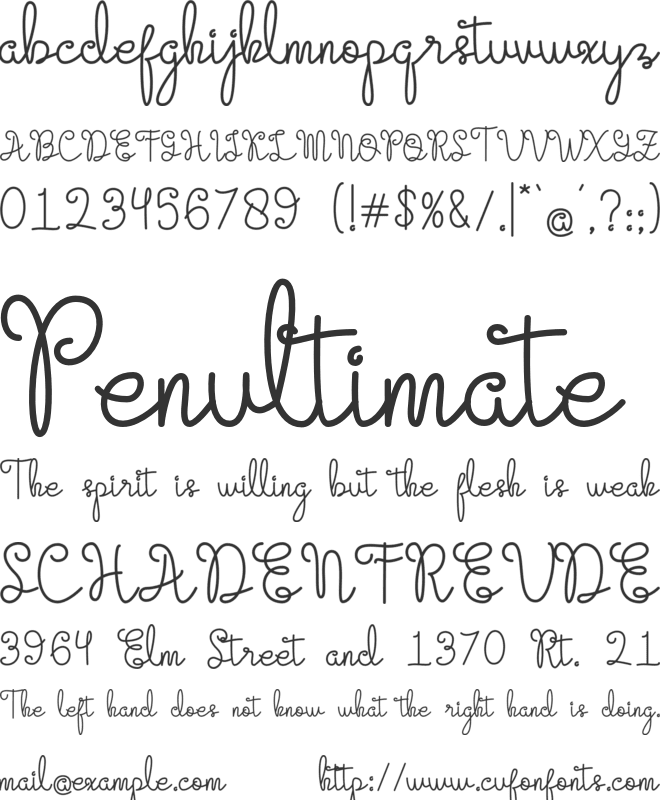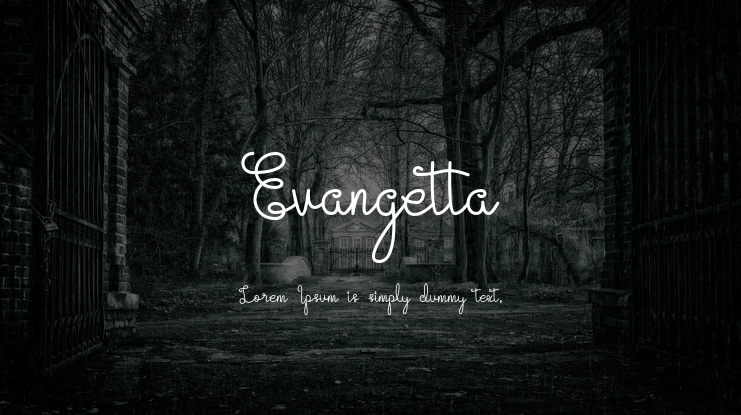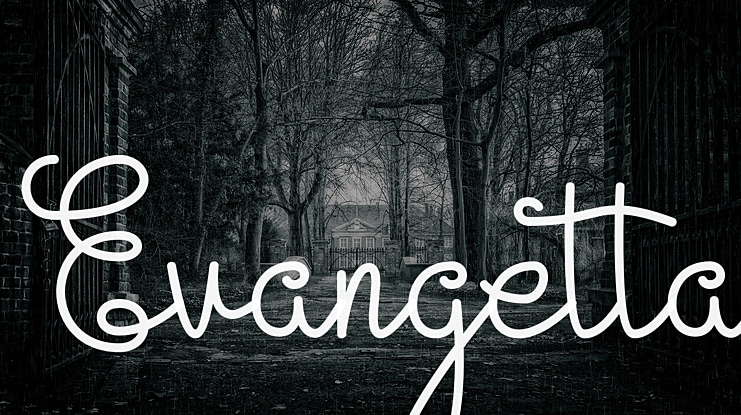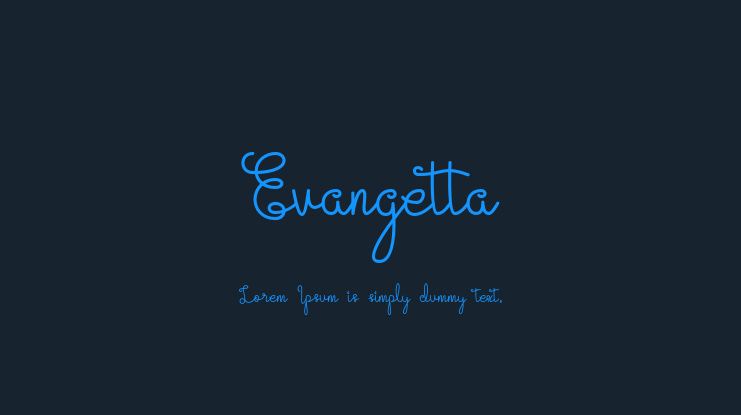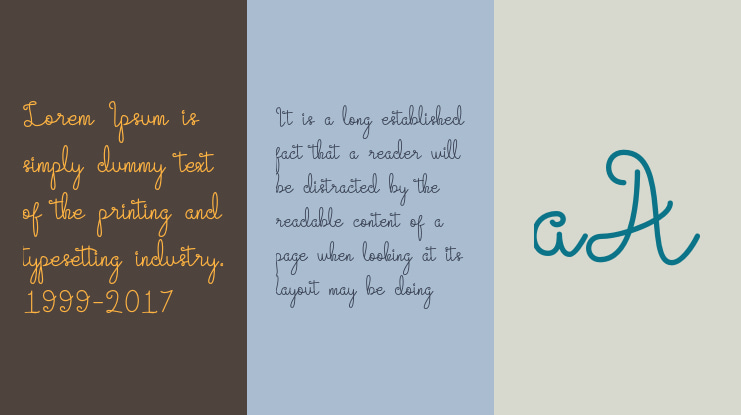
Evangetta Font Family
Evangetta Minimalist Monoline Script
Evangetta is a monoline script font with five weight variations and opentype features.
Beautiful and minimalist handwriting fonts with authentic charm, add a minimalist and elegant feel to any design project.